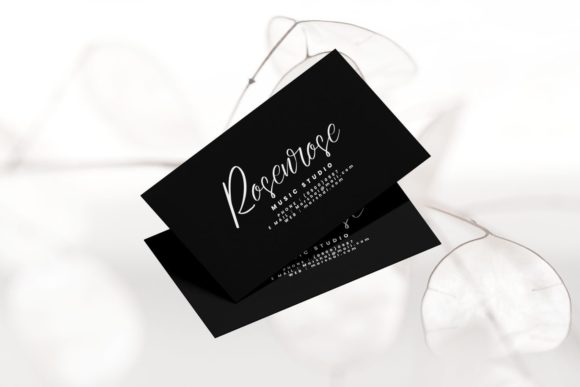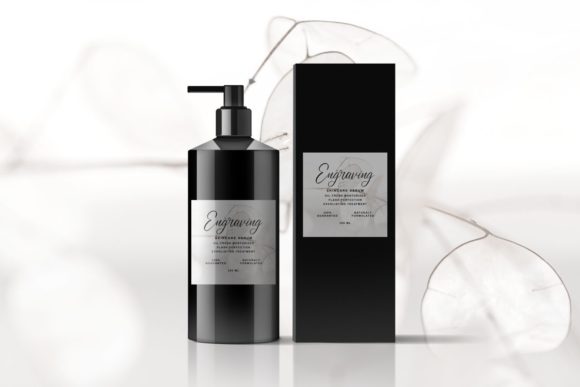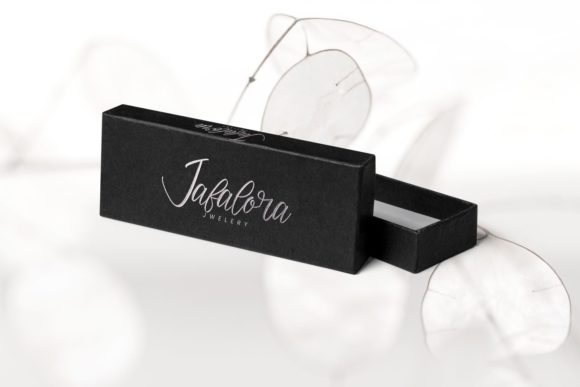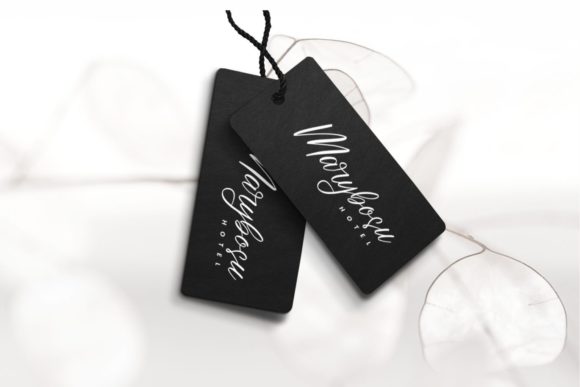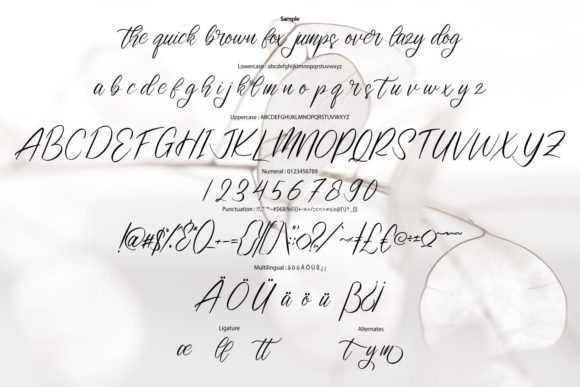
Introducing Entalyum Font: Elevate Your Designs with Elegance and Sophistication
In the world of typography, fonts play a crucial role in conveying the tone and personality of a brand or design. For designers and crafters looking to add a touch of elegance and sophistication to their work, Entalyum Font is an exceptional choice. This stylish handwritten font is designed to make your designs stand out with its delicate flow and unique charm.
The Beauty of Entalyum Font
Entalyum Font is a masterpiece of typographic artistry, boasting a beautiful, handwritten aesthetic that is both refined and captivating. Each letter is carefully crafted to showcase a distinctive and lovely touch, ensuring that your designs come alive with character and personality. Whether you’re creating eye-catching logos, branding materials, or inspirational quotes, Entalyum Font is the perfect companion to help you achieve your creative vision.
Key Features of Entalyum Font
- Stylish Handwritten Aesthetic: Entalyum Font features a beautiful, flowing script that adds a touch of elegance to any design.
- Delicate Flow: The font’s delicate flow ensures that your designs exude sophistication and refinement.
- Unique and Beautiful Touch: Every letter in Entalyum Font is uniquely crafted to add a special charm to your designs.
- Ideal for Logos, Branding, and Quotes: The font’s versatility makes it perfect for a wide range of design applications, from logos and branding materials to inspirational quotes and more.
Why Choose Entalyum Font?
With so many fonts available, why should you choose Entalyum Font for your design projects? Here are just a few compelling reasons:
- Stand Out from the Crowd: Entalyum Font’s unique and stylish aesthetic ensures that your designs will stand out in a crowded marketplace.
- Elegance and Sophistication: The font’s delicate flow and beautiful touch add a level of elegance and sophistication to your designs, perfect for high-end brands and luxury products.
- Versatility: Entalyum Font is versatile enough to be used in a wide range of design applications, from logos and branding to quotes and more.
- Easy to Read: Despite its elegant and refined aesthetic, Entalyum Font remains easy to read, making it perfect for body text and captions.
Tips for Using Entalyum Font
To get the most out of Entalyum Font, here are a few tips to keep in mind:
- Use it as a Headline Font: Entalyum Font is perfect for headlines and titles, where its elegant and refined aesthetic can really shine.
- Pair it with a Sans-Serif Font: For body text, consider pairing Entalyum Font with a clean and modern sans-serif font to create a beautiful contrast.
- Experiment with Colors and Textures: Don’t be afraid to experiment with different colors and textures to add depth and interest to your designs.
In conclusion, Entalyum Font is an exceptional choice for designers and crafters looking to add a touch of elegance and sophistication to their work. With its stylish handwritten aesthetic, delicate flow, and unique charm, this font is perfect for creating eye-catching logos, branding materials, and inspirational quotes. Whether you’re a seasoned designer or just starting out, Entalyum Font is sure to become a valuable addition to your typographic toolkit.